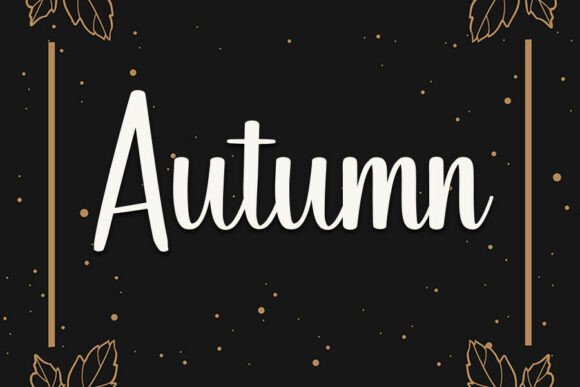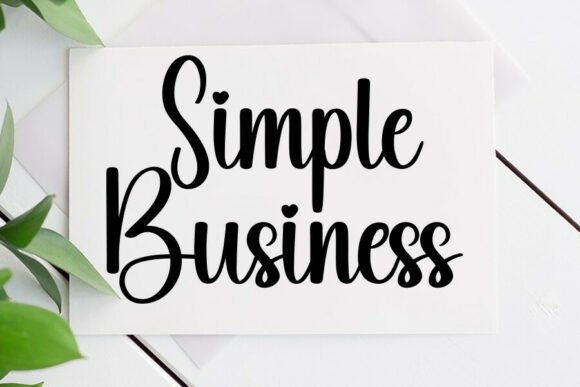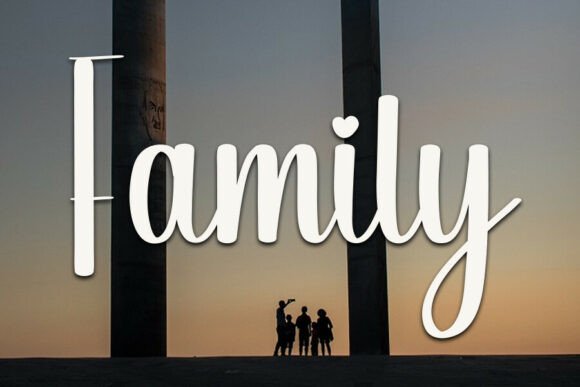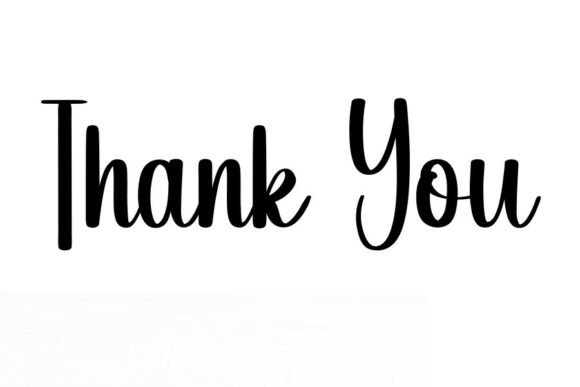
The Magic of Disney Font: Bringing Whimsy to Your Designs
Remember the rush of excitement when you stumbled upon the perfect font for your creative project? It’s a feeling that never gets old, and one font that’s sure to spark that magic is the Disney Font. This charming handwritten font is a versatile tool that’s perfect for adding a touch of whimsy to your next project, whether it’s a greeting card, a headline, or even a children’s book.
| 👤 Author | cans studio |
The Disney Font’s simple yet natural feel makes it an invaluable asset for designers looking to add a personal touch to their work. With its wide range of applications, this font is guaranteed to bring a smile to your audience’s faces and leave a lasting impression. Whether you’re a seasoned pro or a design newbie, the Disney Font is sure to become a trusted companion in your creative journey.
Key Features of Disney Font
- Font Family: The Disney Font is a custom-designed font family, consisting of multiple styles and weights.
- Unique Characteristics: The Disney Font features a distinctive, hand-drawn look with rounded edges, smooth curves, and a touch of whimsy, making it instantly recognizable as a Disney font.
Disney Font Review
When I first laid eyes on the Disney Font, I was immediately drawn to its whimsical charm ✨. The font’s unique design, inspired by classic Disney illustrations, brings a touch of nostalgia and magic to any text it’s used in. The font’s curves and flourishes are reminiscent of hand-drawn illustrations, making it perfect for projects that require a sense of wonder and enchantment.
One of the standout features of the Disney Font is its versatility ✨. It can be used for a wide range of applications, from digital displays to print materials, without losing its charm. The font also comes in a range of weights and styles, allowing designers to tailor the look to their specific needs.
- ⚠️ Limited character set: The Disney Font’s character set is limited, which may make it difficult to use for longer blocks of text or for projects that require a wide range of characters.
- ⚠️ May not be suitable for serious or formal projects: The Disney Font’s playful design may not be suitable for projects that require a more serious or formal tone.
Overall, the Disney Font is a delightful addition to any designer’s toolkit ✨. While it may have some limitations, its unique charm and versatility make it a great choice for projects that require a touch of magic and wonder.
Tips for Getting the Most Out of the Disney Font
To get the most out of the Disney Font, use it for projects that require a whimsical and playful touch, such as:
- Children’s party invitations
- Wedding invitations with a Disney theme
- Graphic designs for kids’ products
The Disney Font is commonly used for:
- Disney-themed designs
- Children’s products and packaging
- Party decorations and invitations